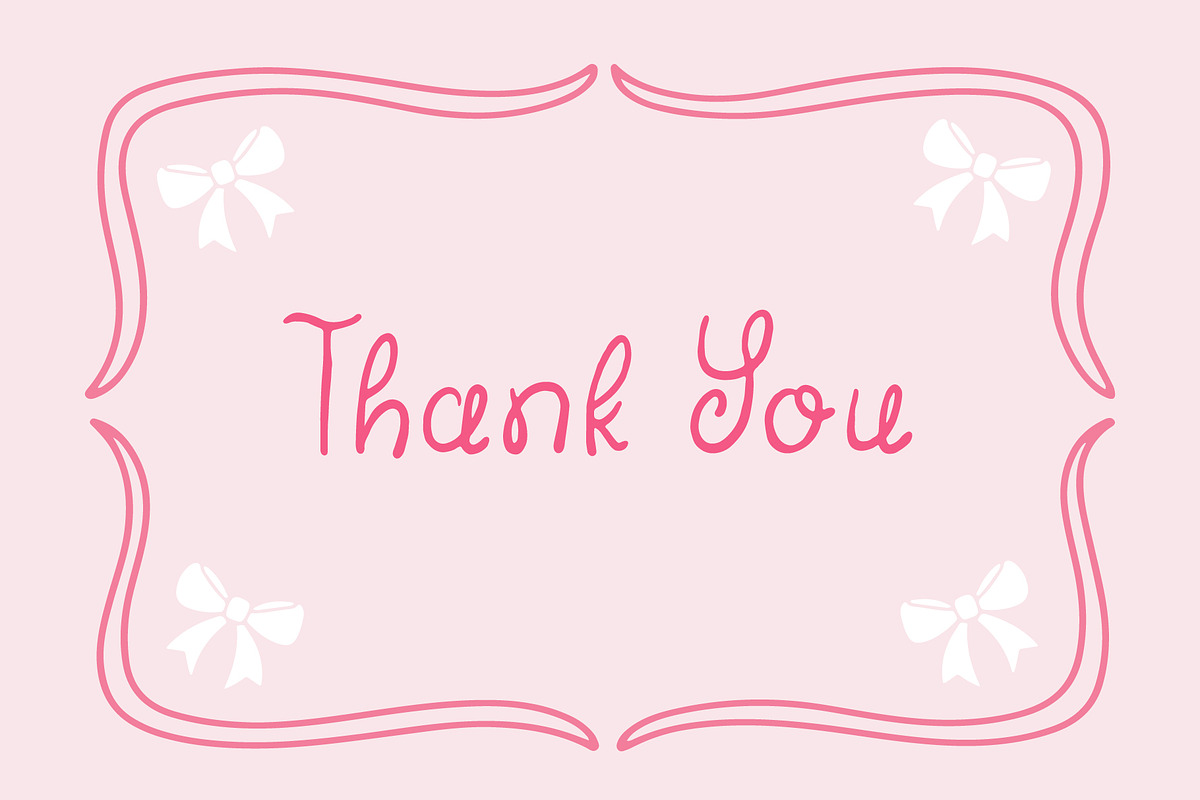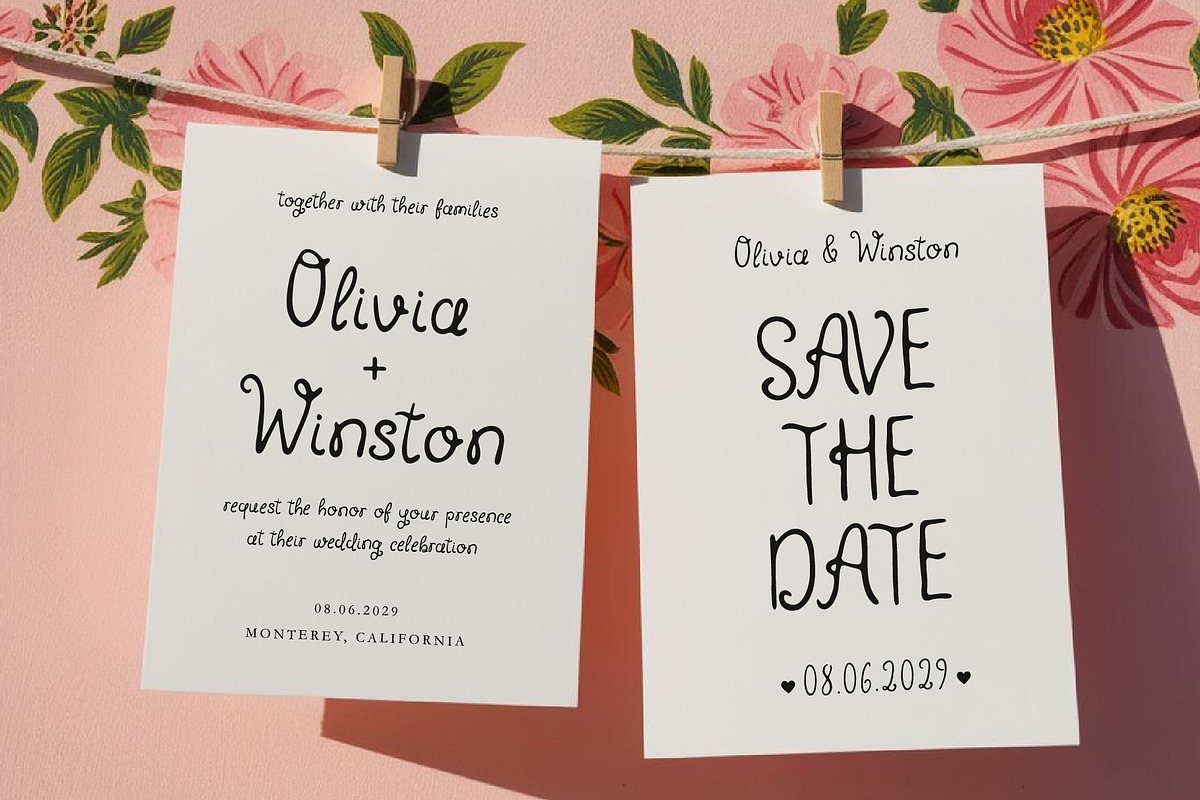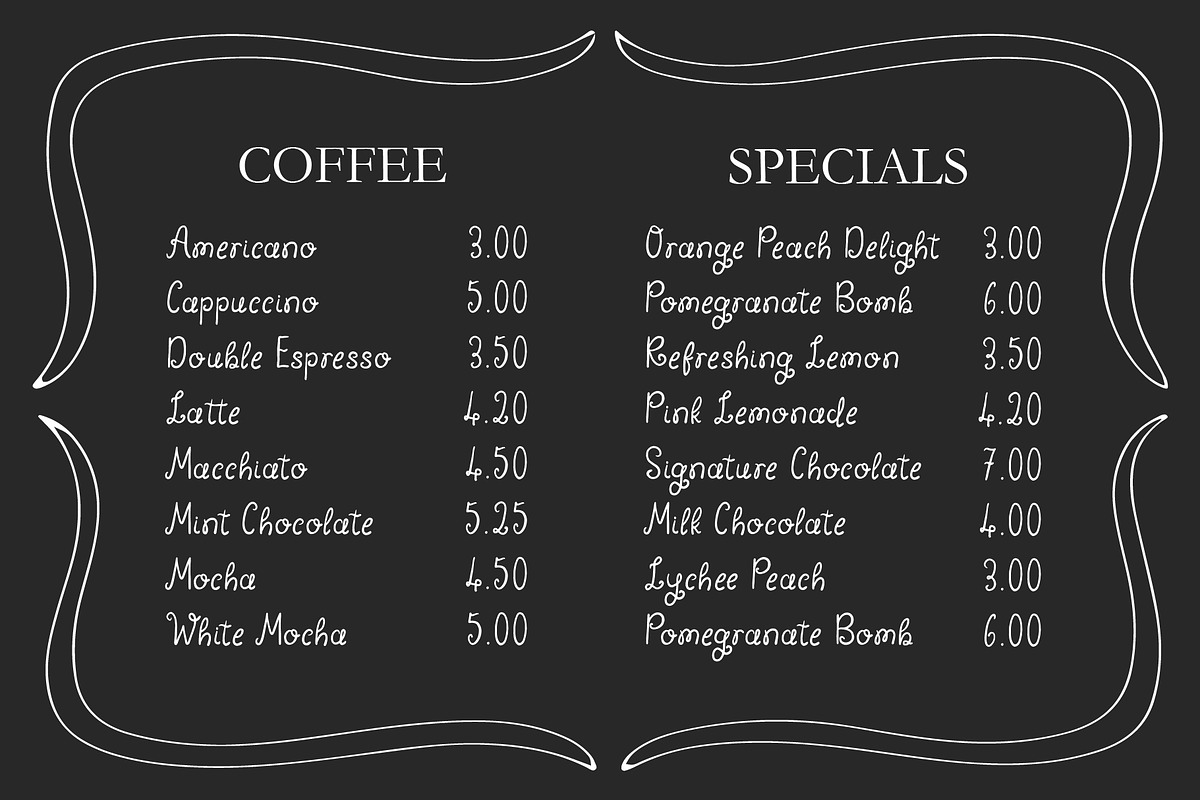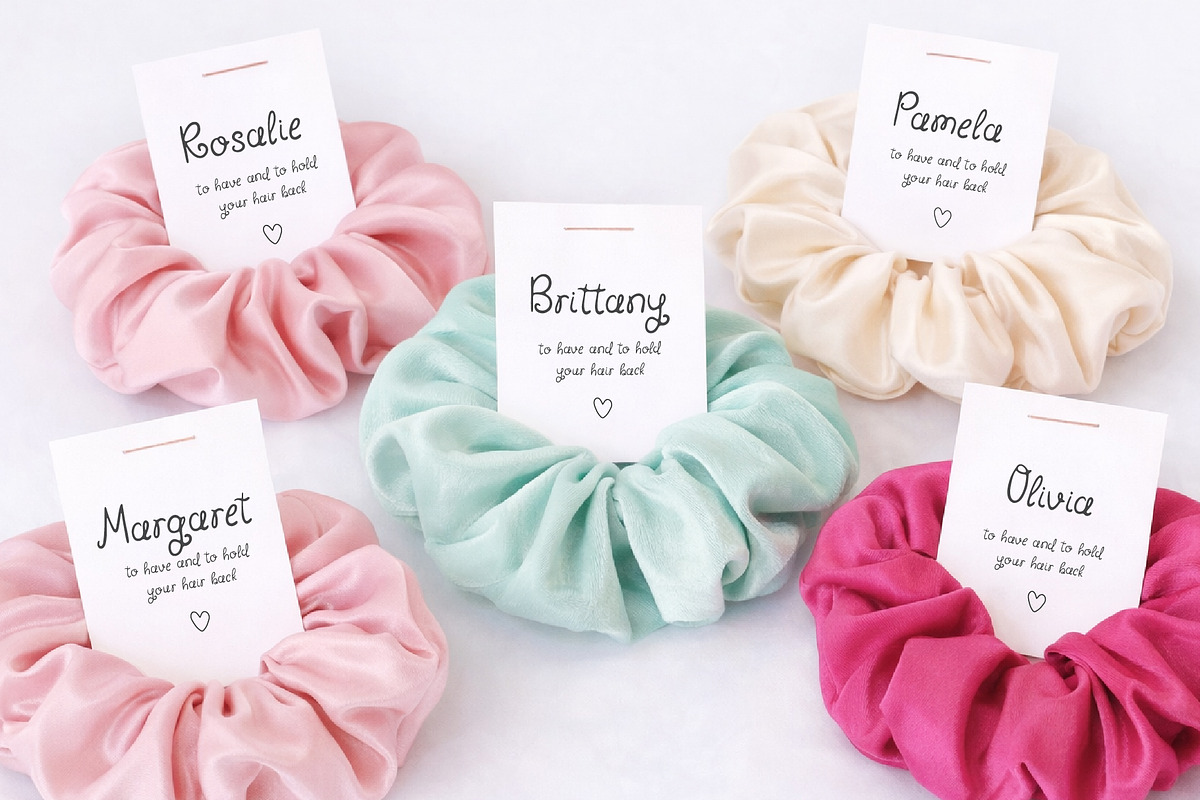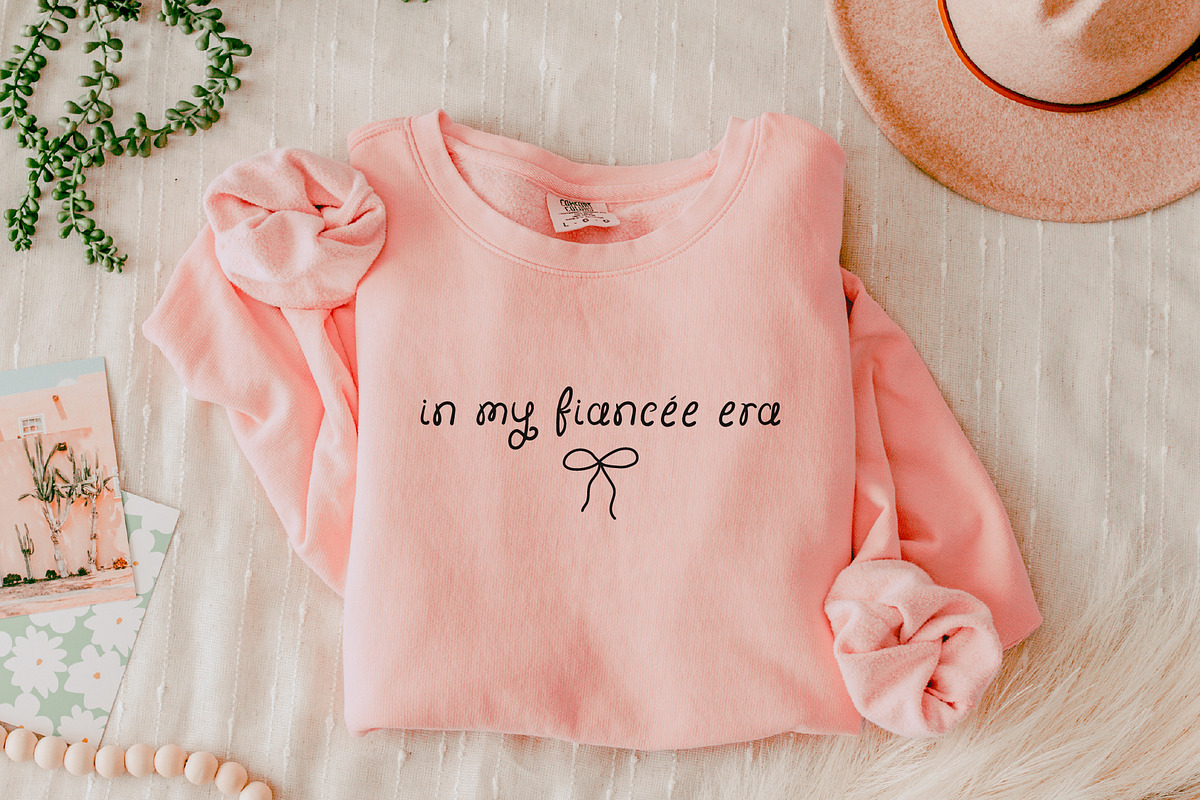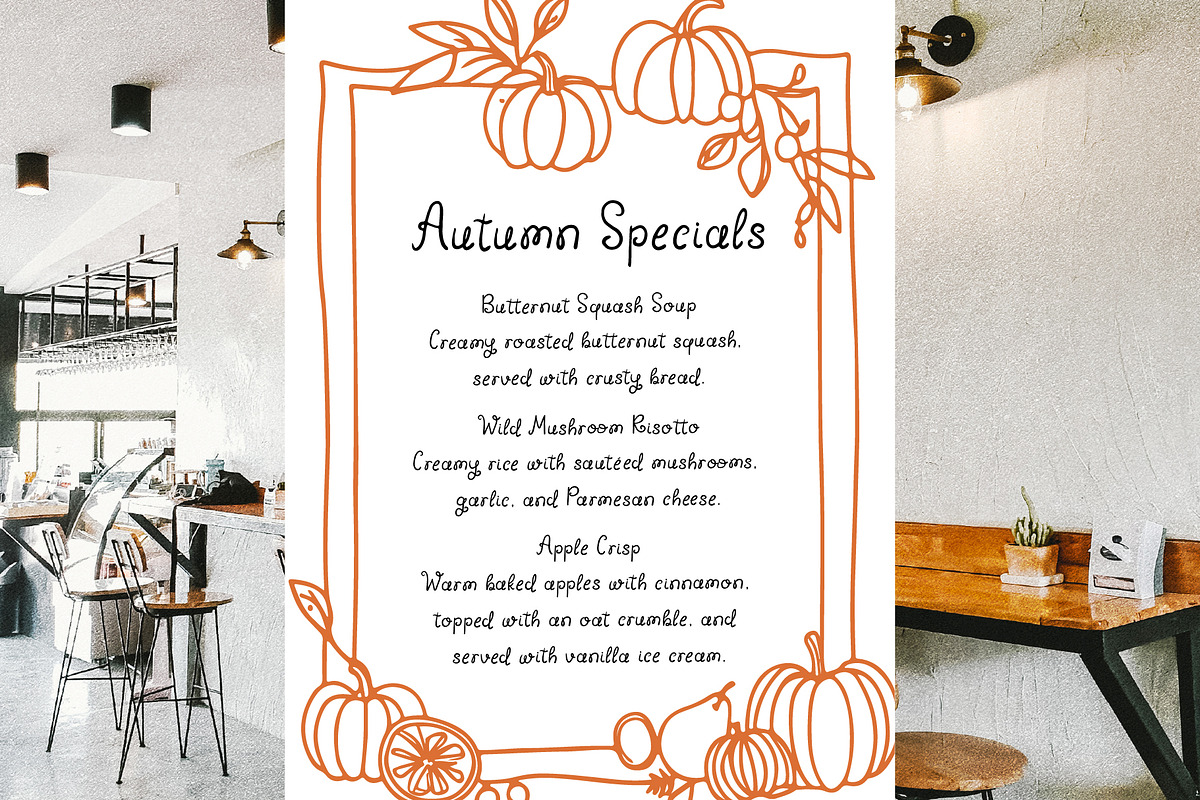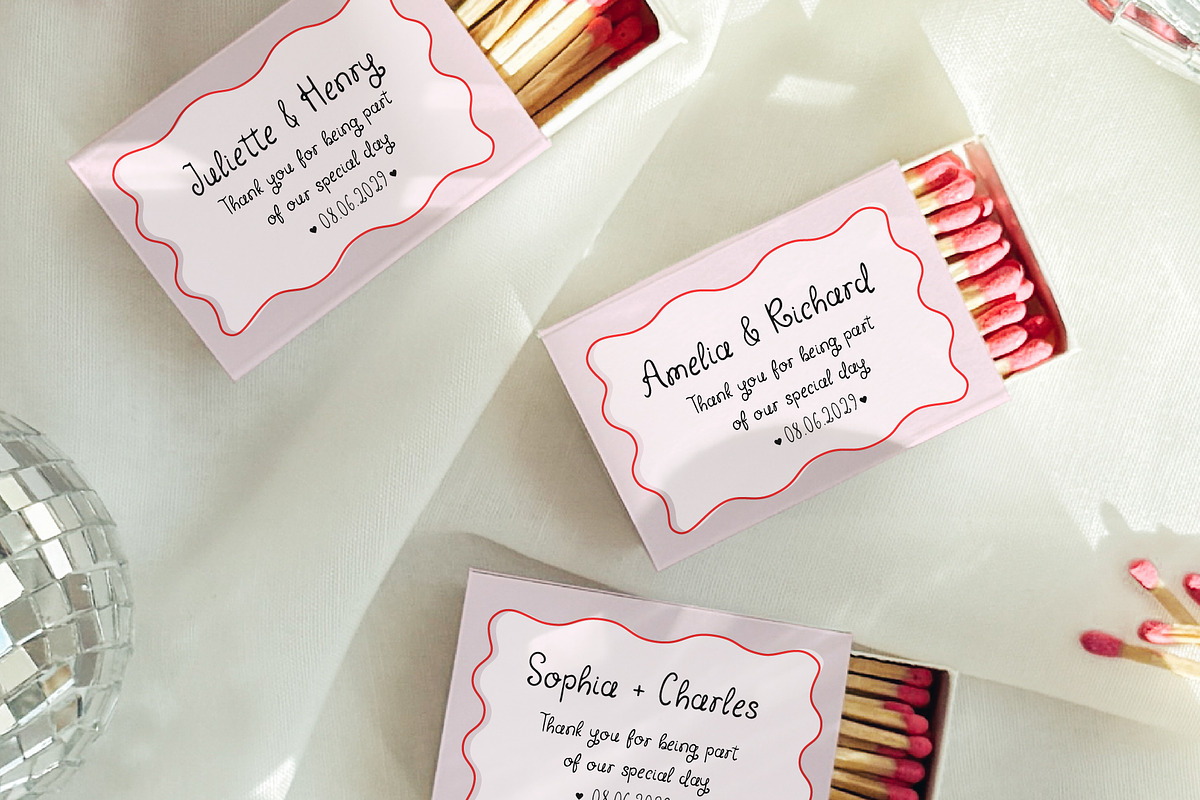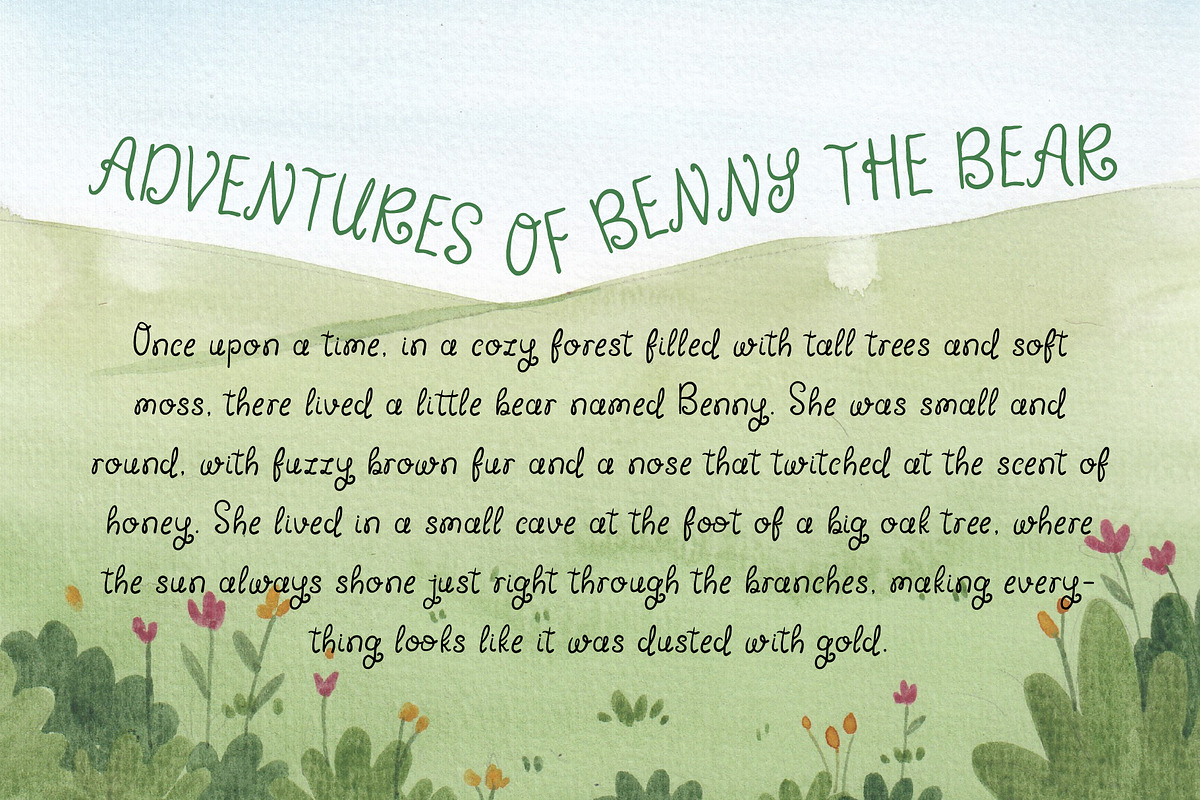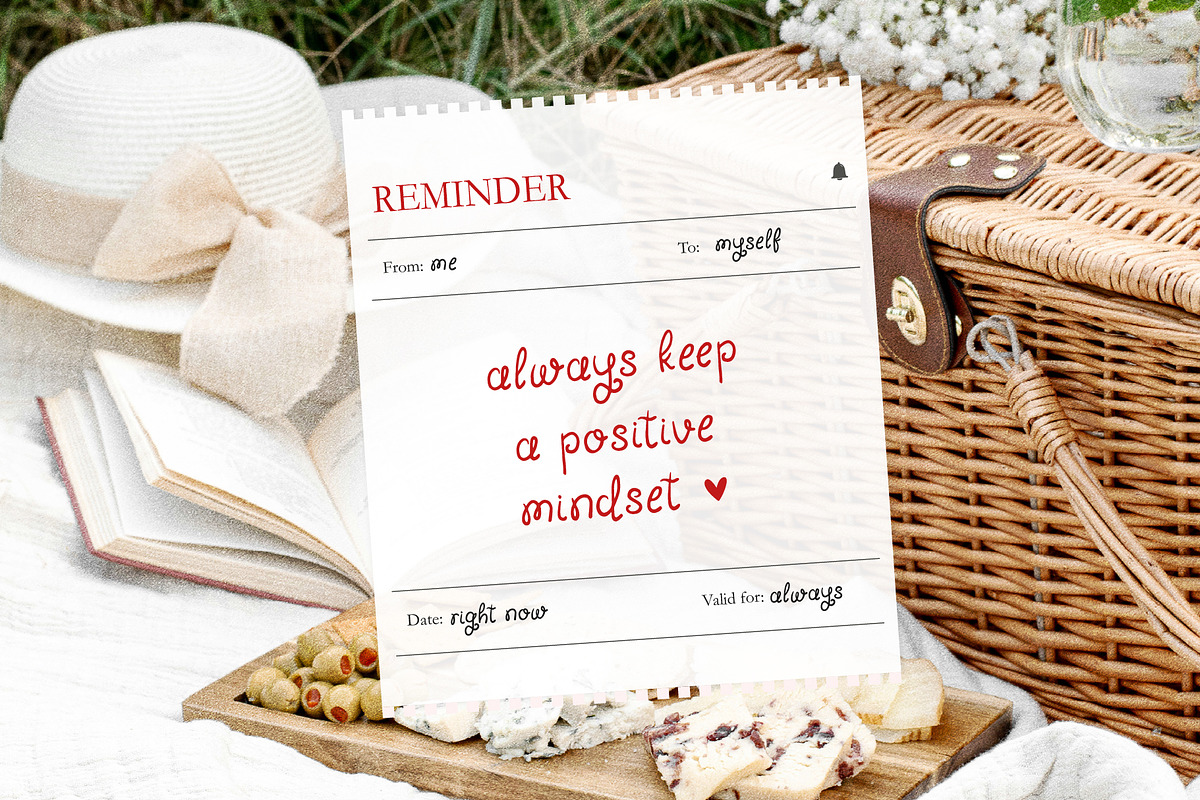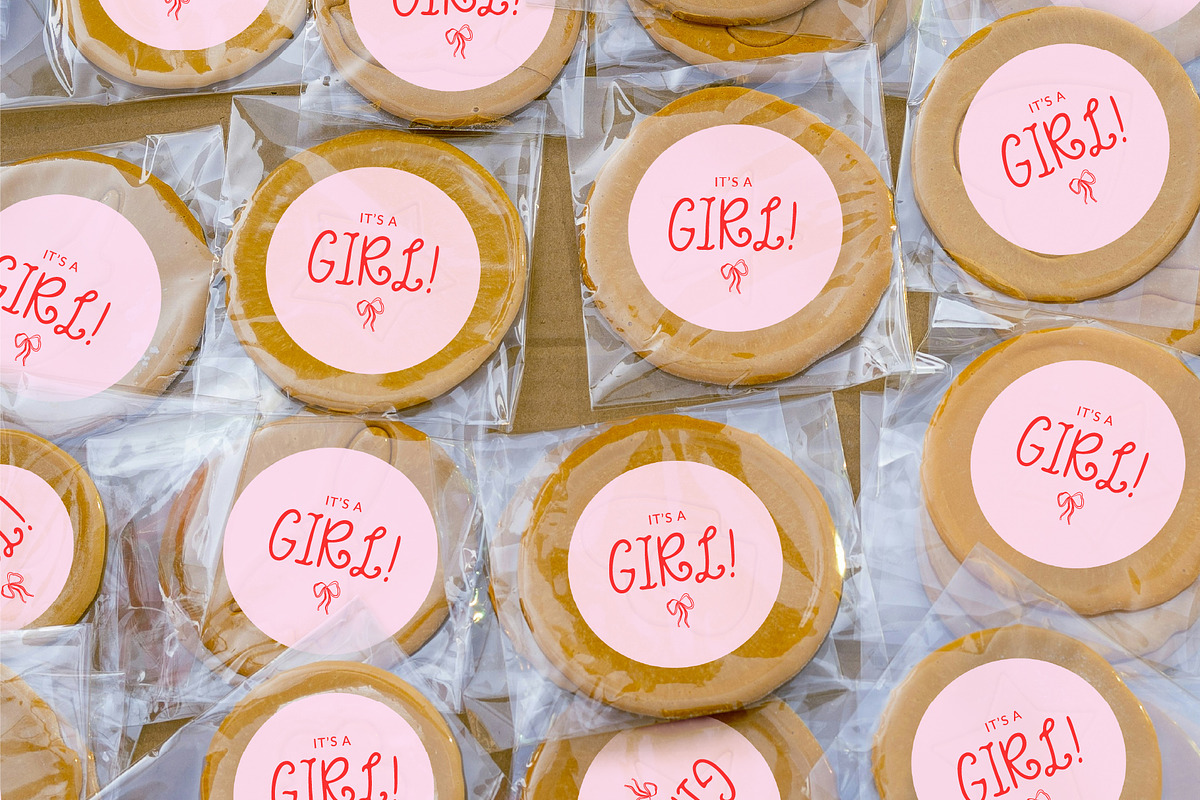
Whimsy Brides - Whimsical Curly Font
Whimsy Brides Font is a whimsical handwritten script font with playful curls and a sweet handmade feel.
With its natural handwriting style and subtle texture this font is perfect for projects that need a lighthearted, whimsical feel.
FONT FEATURES
• Natural handwriting style
• Standard characters (lowercase, uppercase, numbers, punctuation)
• Opentype Ligatures